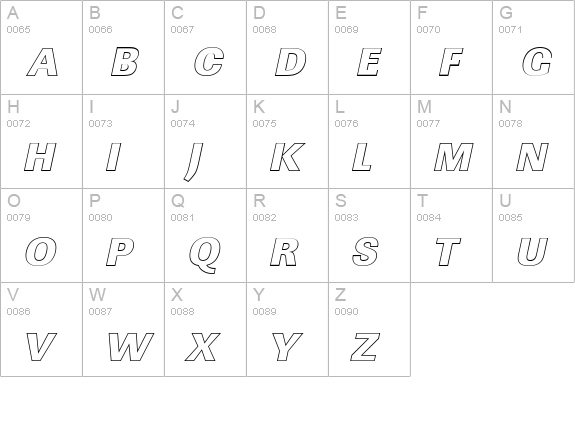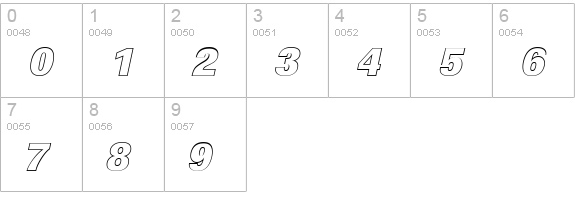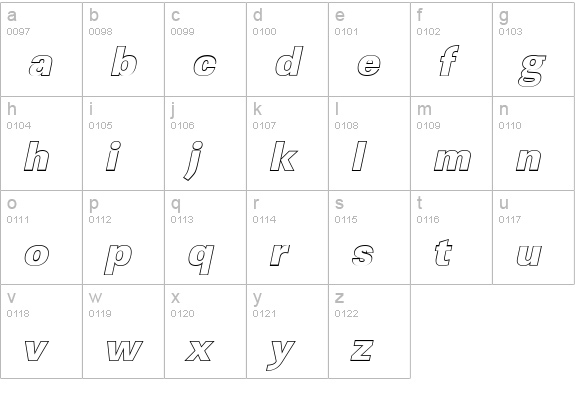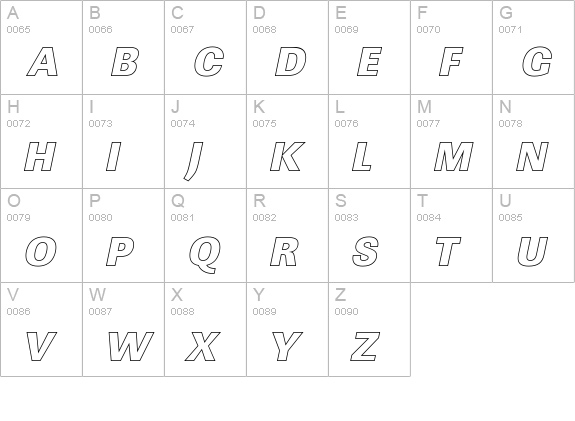
LinearOu-Heavy-Italic is a heavy, high-impact, italic variant in the LinearOu typeface family \xE2\x80\x94 well suited to high-impact headlines, posters, and display advertising.
Introducing LinearOu-Heavy-Italic, a modern and sophisticated font that exudes elegance and style. This unique typeface combines linear elements with a heavy weight and italicized design, creating a distinctive look that is perfect for adding a touch of flair to your projects. With its sleek and contemporary appearance, LinearOu-Heavy-Italic is ideal for a wide range of design applications, from branding and advertising to packaging and web design. Its clean lines and bold presence make it a standout choice for making a statement and capturing attention. Best of all, LinearOu-Heavy-Italic is available for free download at FontsMarket.com. This means you can easily access this high-quality font and incorporate it into your creative endeavors without any cost. Don't miss out on the opportunity to enhance your designs with the striking beauty of LinearOu-Heavy-Italic – download it today and let your creativity shine!